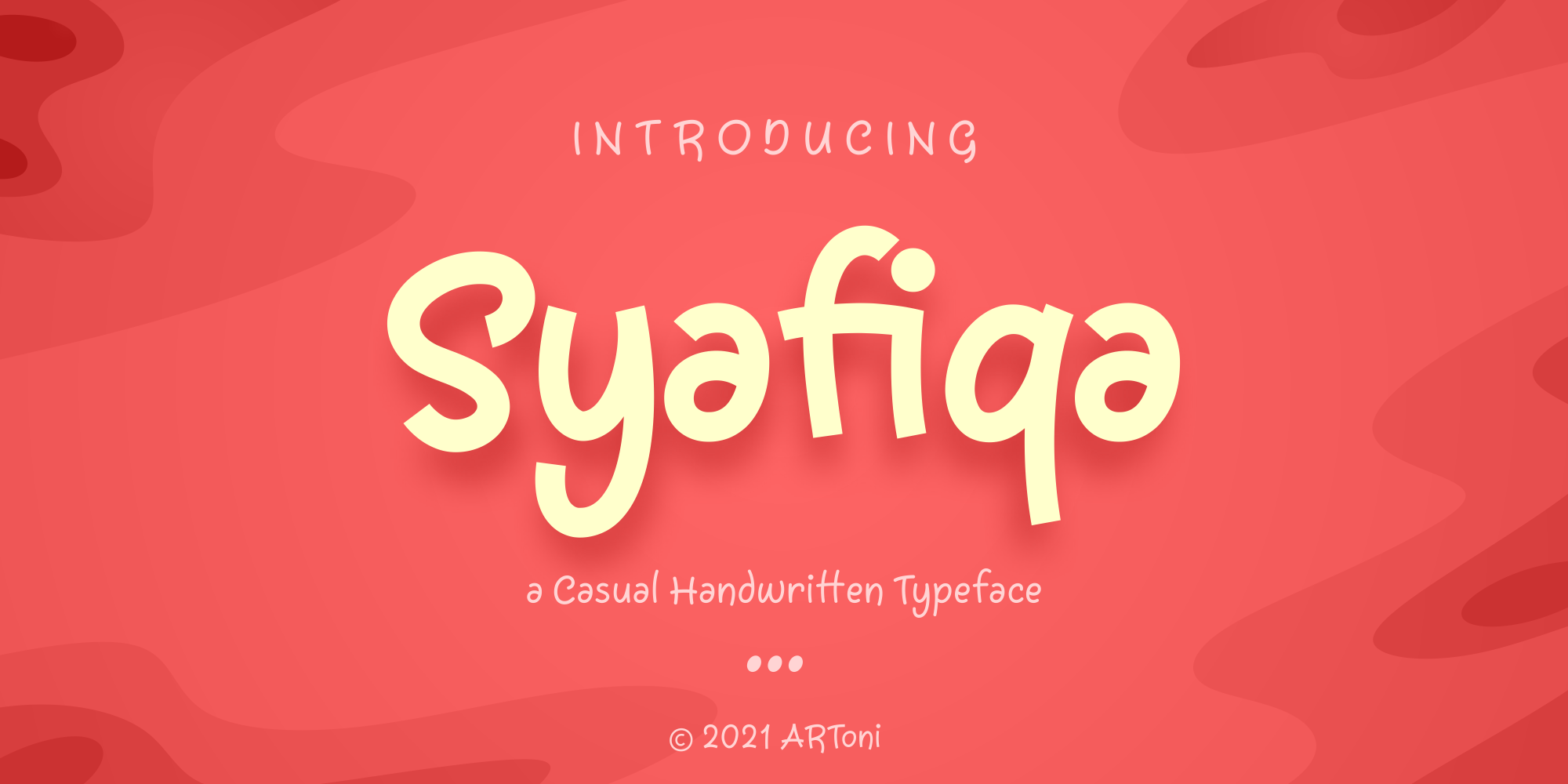
Syafiqa Font is ideal for Islamic cultural centers, Middle Eastern restaurant branding, Arabic calligraphy workshops, Muslim community events, halal food packaging, Islamic art exhibitions, mosque signage, Ramadan celebration materials, spiritual wellness centers, cultural heritage festivals, traditional craft businesses, and authentic cultural celebration designs.
This font is exciting because it embodies the profound spiritual beauty and cultural richness found in Islamic artistic traditions, featuring gracefully flowing letterforms that capture the same divine elegance and peaceful harmony that defines Islamic calligraphy and the deep spiritual meaning behind the name "Syafiqa," which represents healing, compassion, and divine mercy. The carefully crafted character design honors both the geometric precision of Islamic art and the flowing grace of Arabic script traditions, creating typography that feels authentically rooted in centuries of Islamic cultural heritage while maintaining perfect accessibility for contemporary applications. Each letter radiates the kind of spiritual serenity and cultural dignity that transforms ordinary text into expressions of faith, beauty, and cultural pride.
The Syafiqa Font family includes regular and bold weights with complete character sets featuring culturally-inspired numerals, traditional punctuation marks, and decorative elements reminiscent of Islamic geometric patterns, arabesque designs, and spiritual symbols. Advanced versions may offer additional stylistic variants with enhanced flowing effects, alternate characters that reflect traditional Arabic calligraphy influences, and ornamental elements that celebrate Islamic artistic heritage and spiritual traditions.
Whether you're developing Islamic cultural branding, creating community celebration materials, or designing spiritual wellness content, Syafiqa Font Free Download provides the spiritual grace and cultural authenticity your project needs to honor Islamic traditions while building meaningful connections across diverse communities. This typeface transforms ordinary text into blessed expressions that carry the healing energy and divine compassion represented by the beautiful name Syafiqa. The font's spiritual character makes it perfect for organizations and brands committed to cultural respect, spiritual growth, and community healing. Islamic culture enthusiasts and spiritual wellness practitioners will appreciate how this font brings authentic cultural blessing to their work with its genuinely peaceful and spiritually nurturing character that honors Islamic artistic traditions.